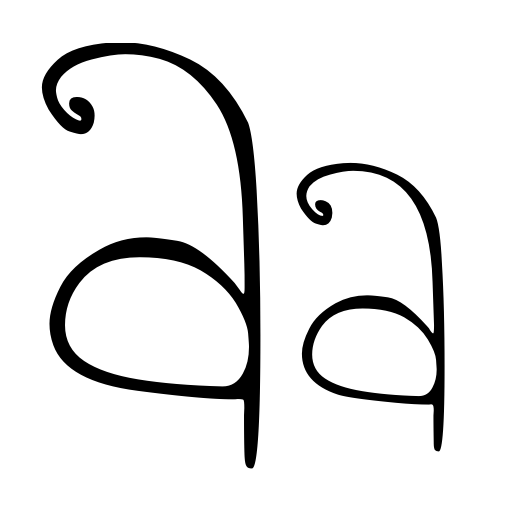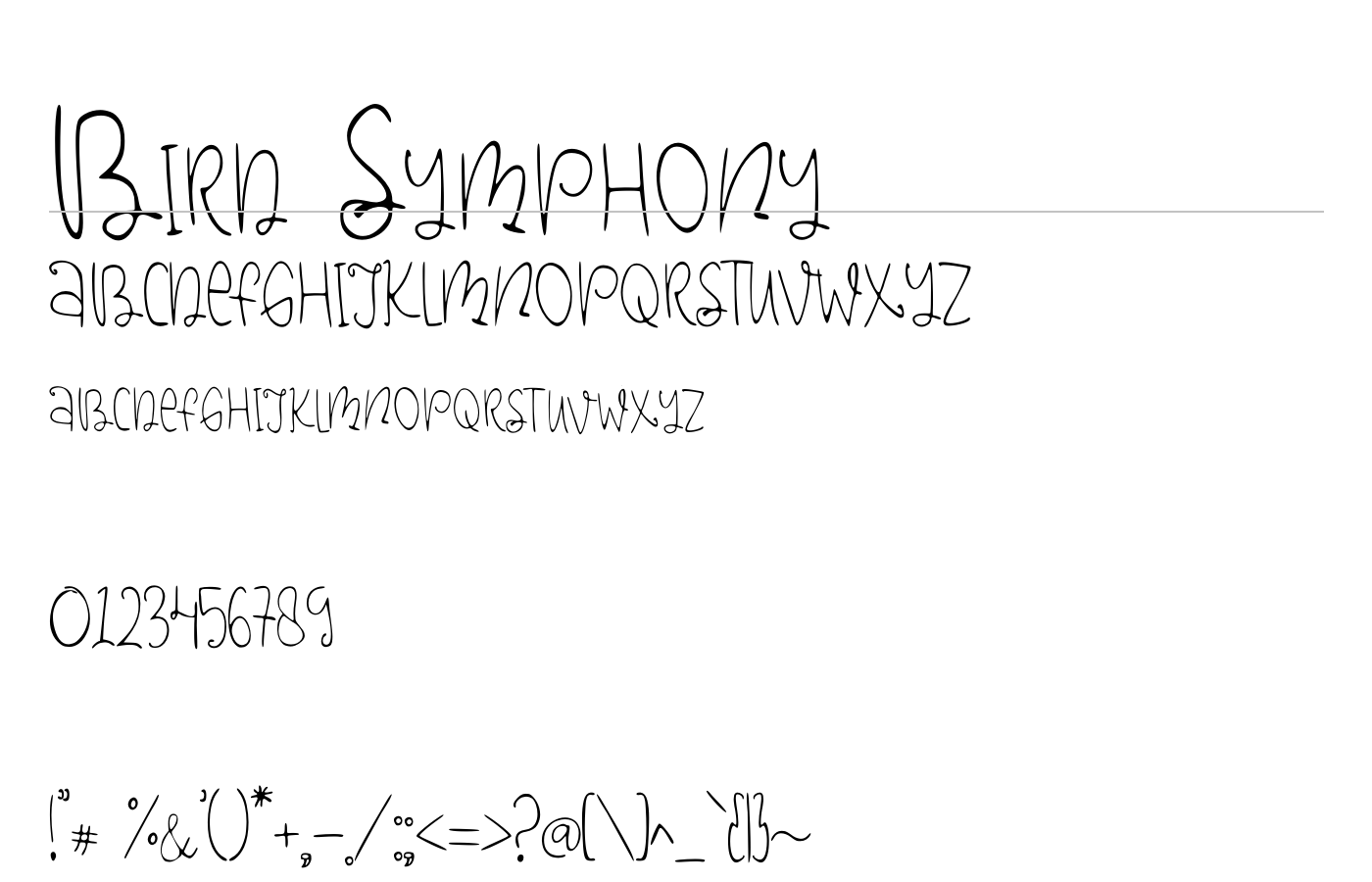
Bird Symphony is a whimsical, hand-drawn sans serif font with playful, elongated letterforms and quirky curls that give it a lively, artistic feel. Its light weight and airy spacing make it perfect for creative projects, children’s books, invitations, and branding that seeks a fun, informal personality. This font adds charm and uniqueness where a personal, handcrafted touch is desired.
Bird Symphony Font
About Bird Symphony Font
| Designer | Arief Tri Sulistiyono |